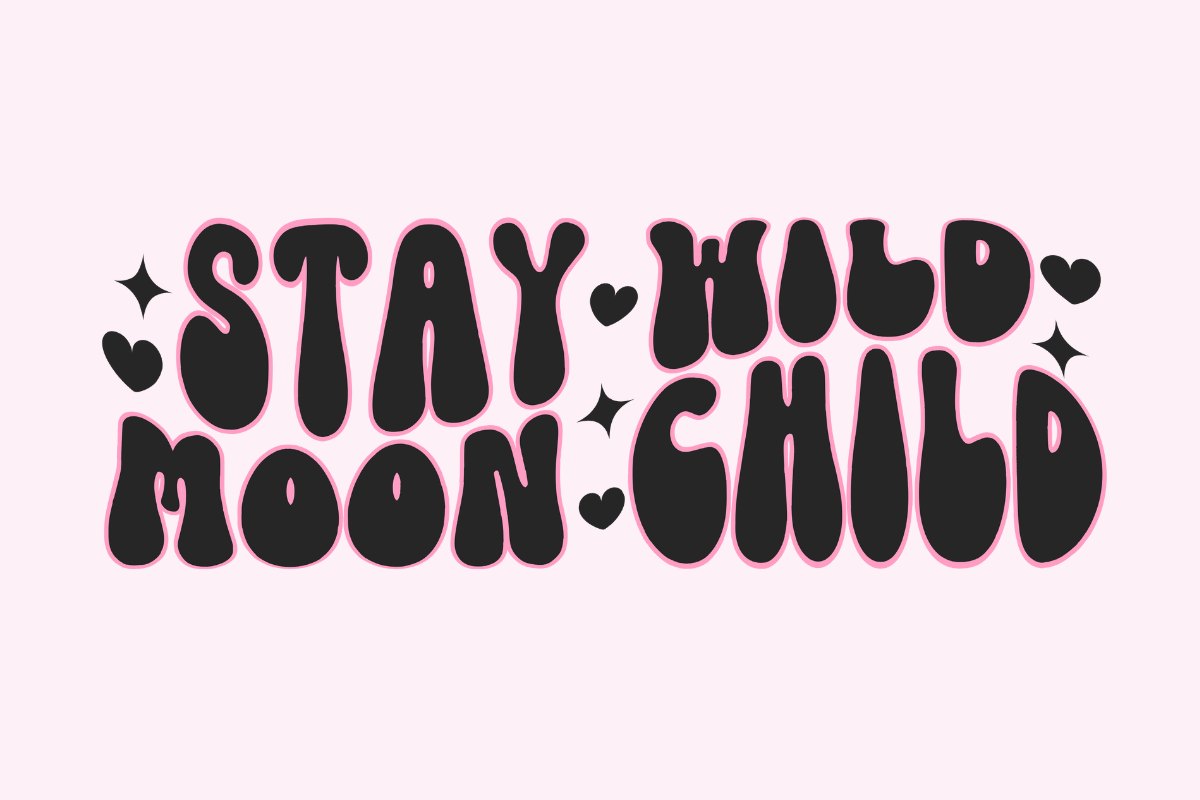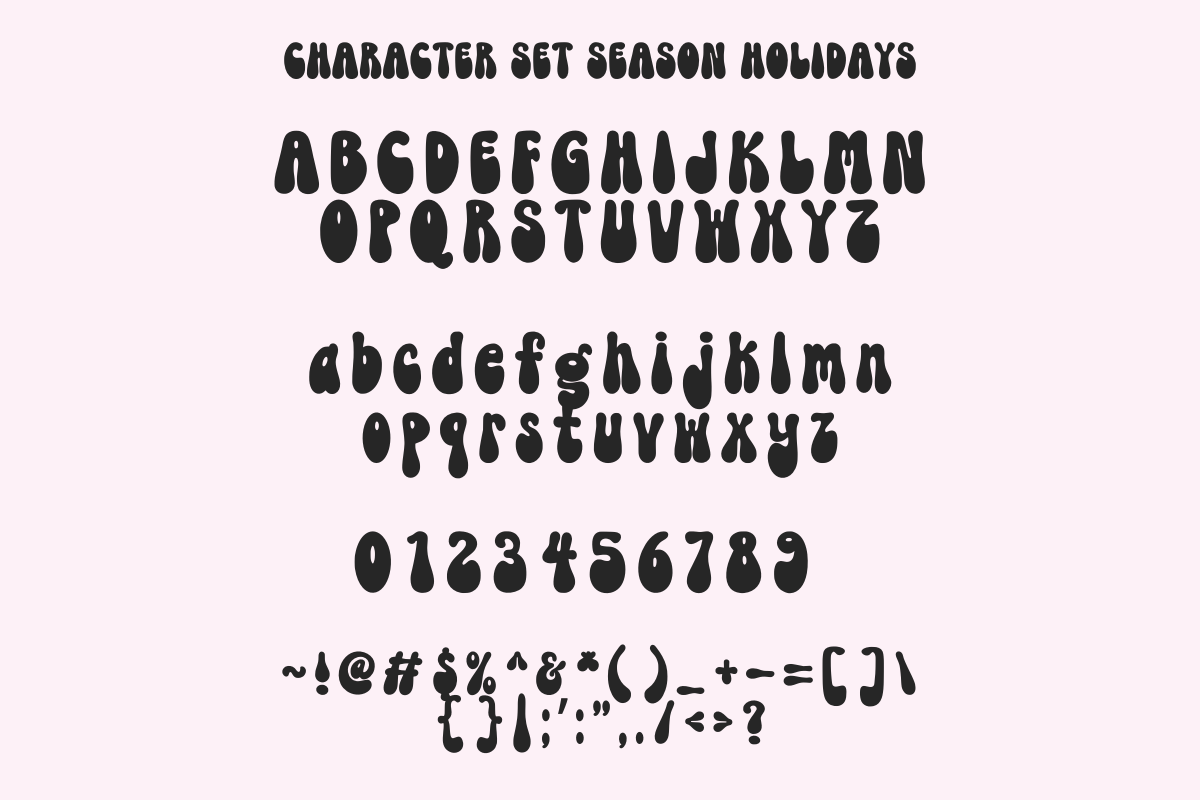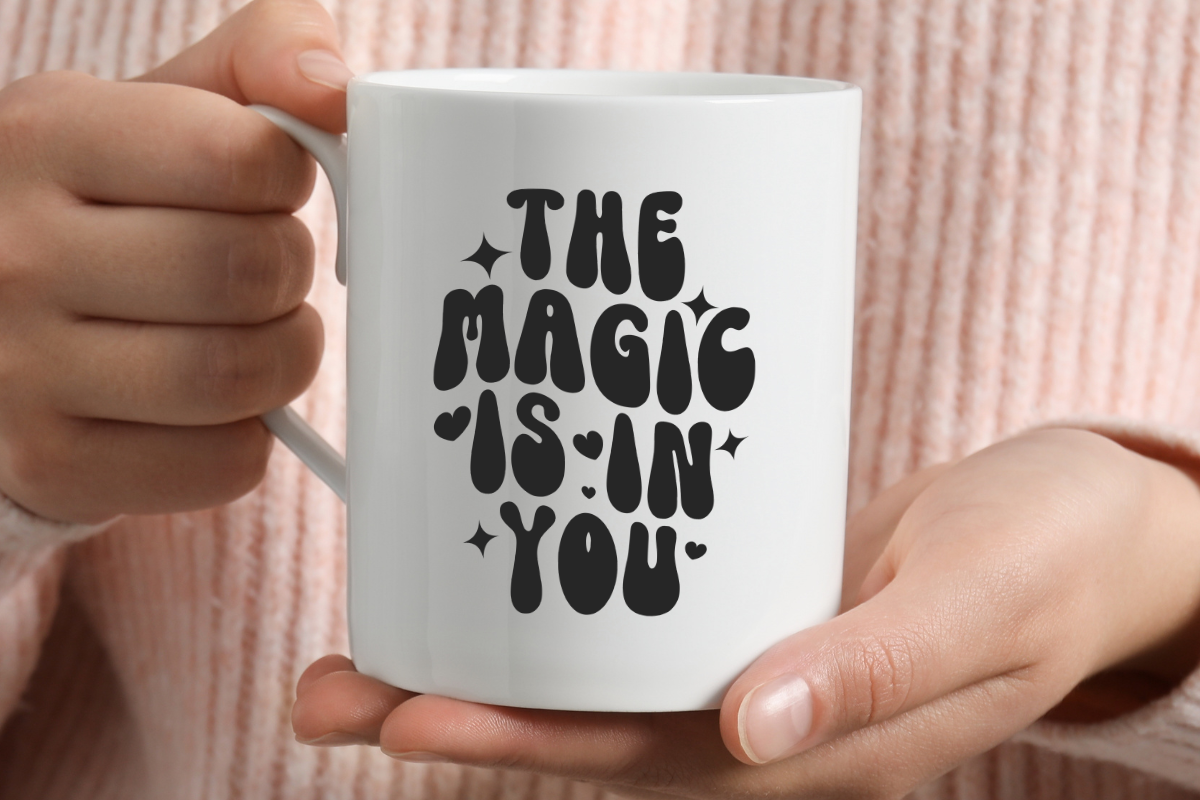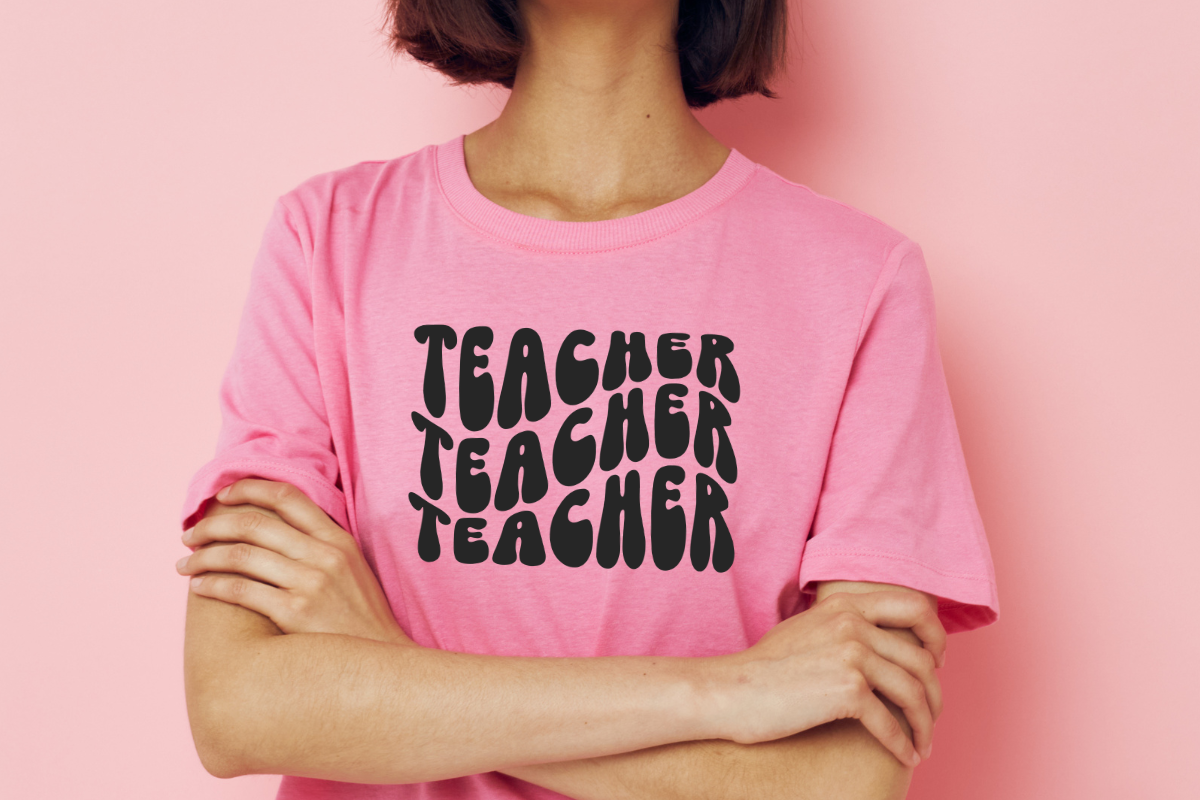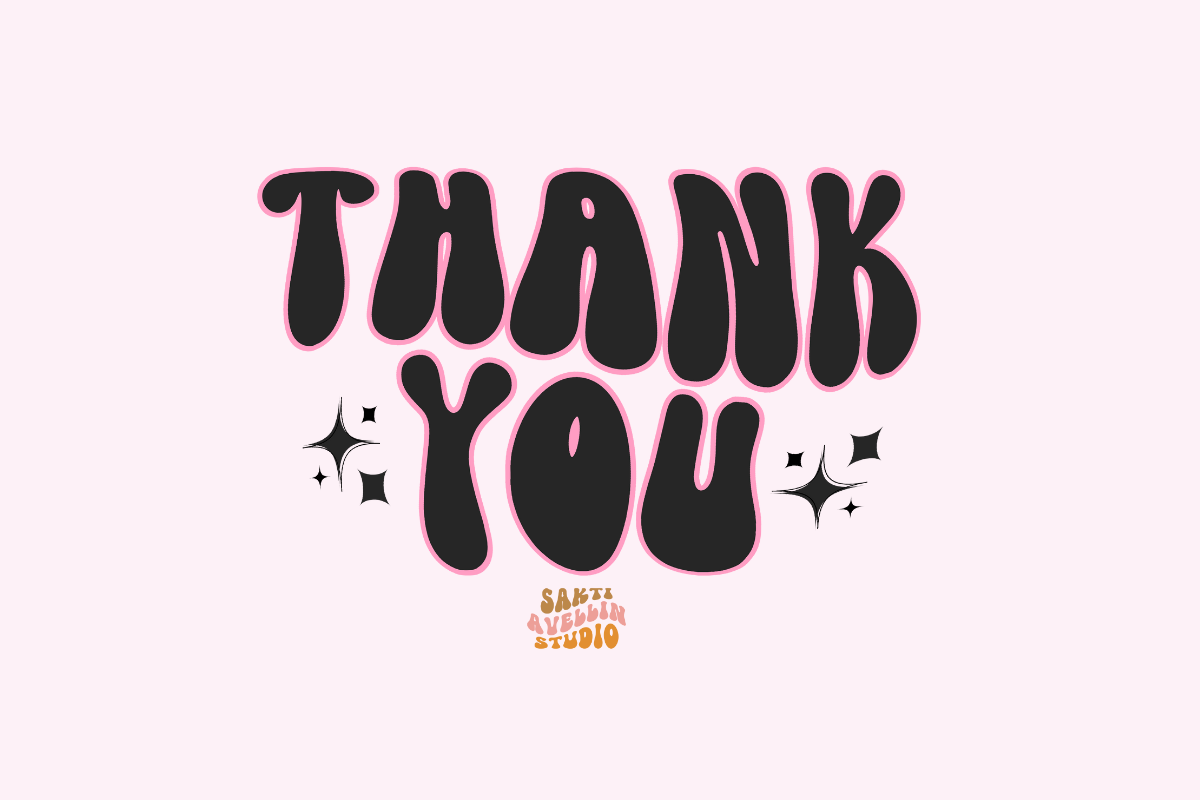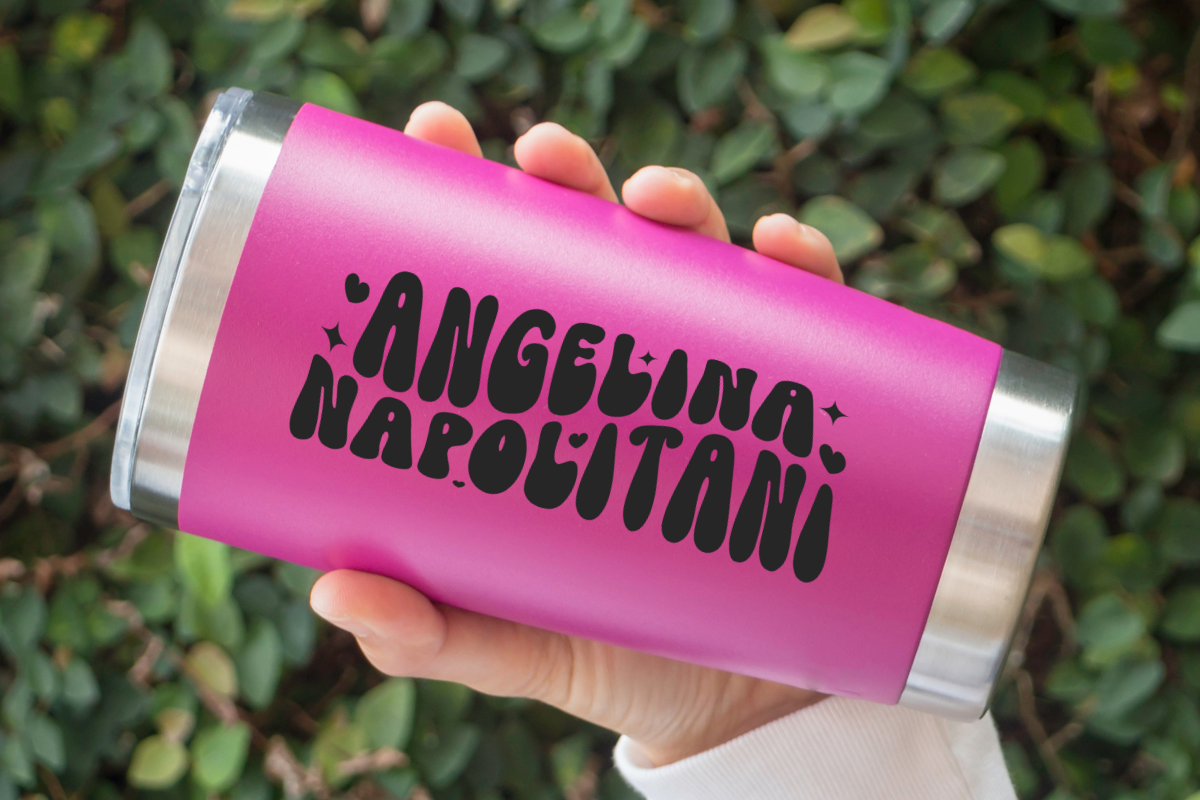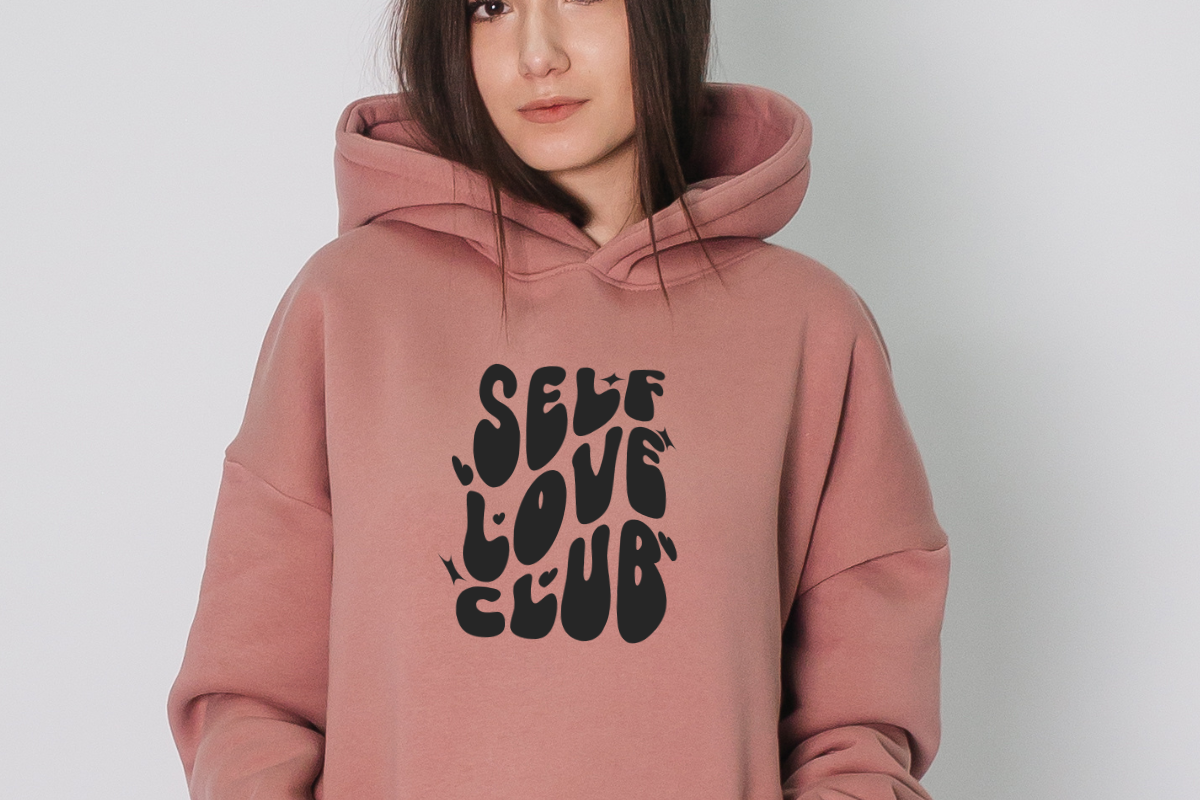
Retro Lovely
Introducing Retro Lovely - a captivating, chic, and vintage-inspired display font. True to its name, it skillfully interweaves the nostalgia of yesteryalk with modern design elements, and reigns supreme in its versatility. Whether you're concocting Valentine’s day visuals or crafting memorable quotes, Retro Lovely stands out with a unique charm. Its aesthetic translates flawlessly to apparel such as t-shirts and hoodies, while also being a delightful choice for accessories like tumblers and mugs. Essentially, Retro Lovely is your ace in the hole for any project that calls for a dash of timeless elegance and a pinch of playful allure.